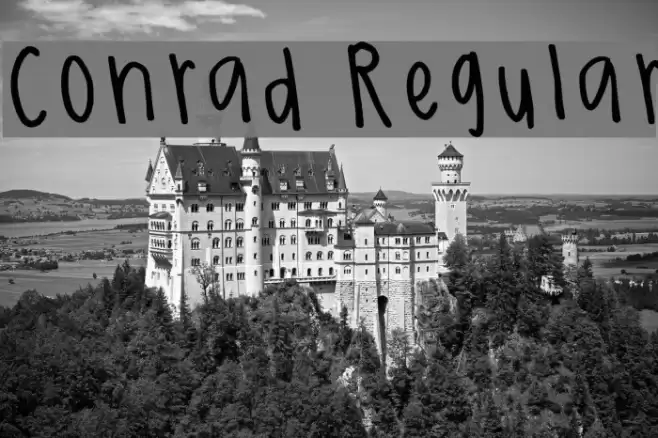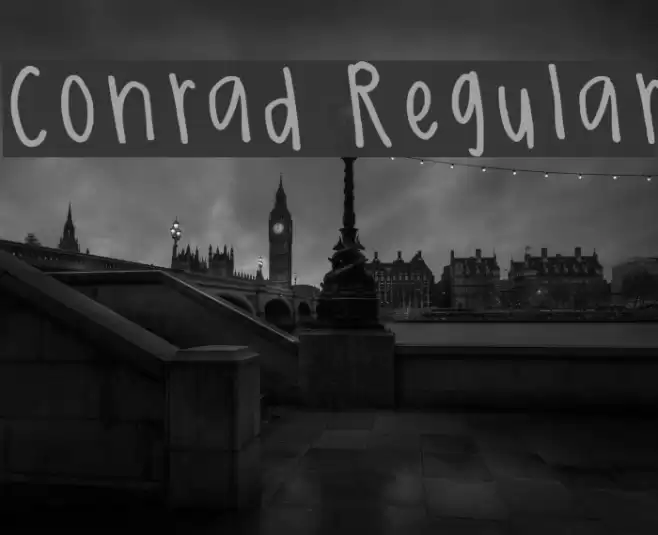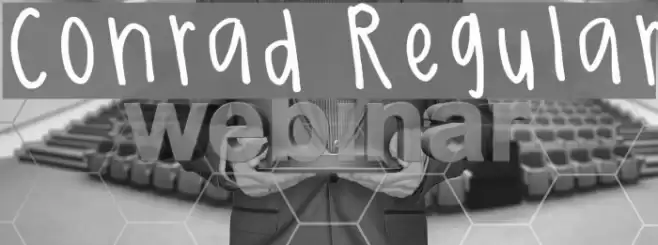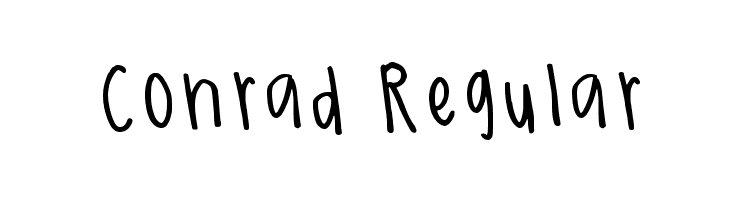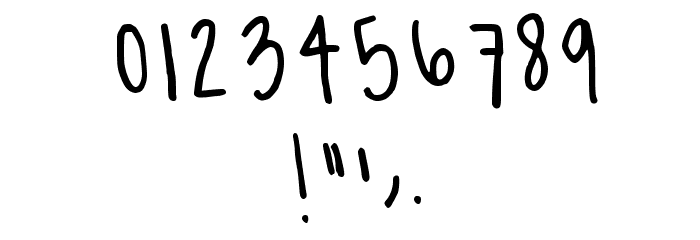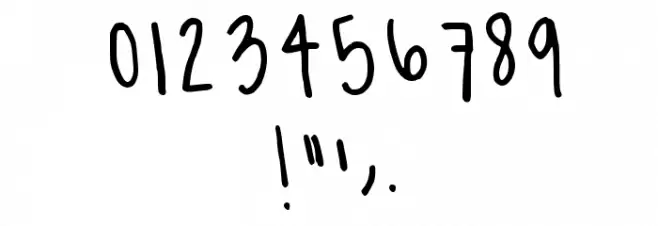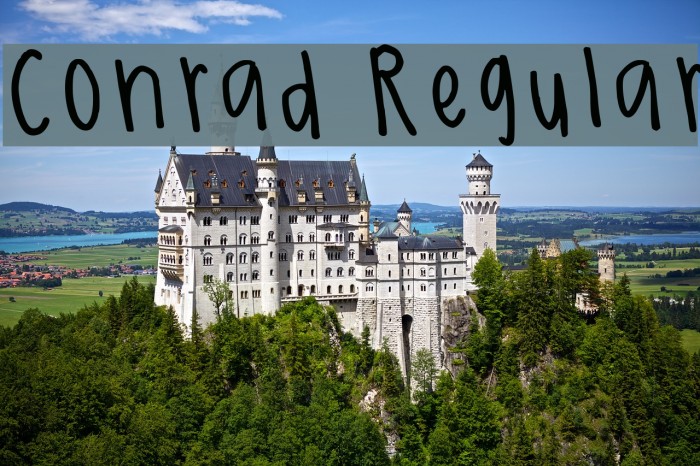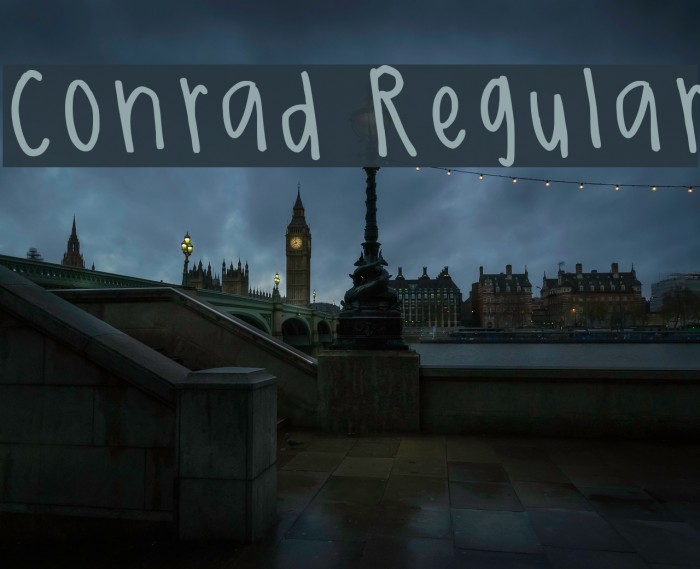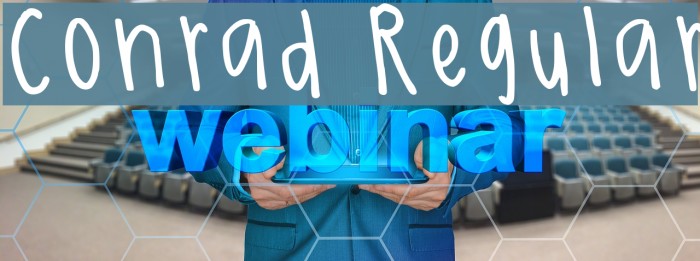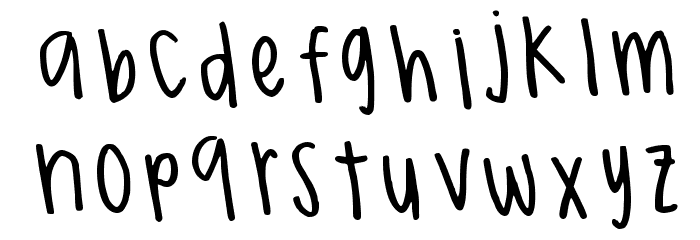
Conrad Regular Font
Conrad Regular Description
This font features a playful and casual handwritten style, characterized by its irregular and slightly uneven strokes. The letters have a natural flow, with a slight tilt that adds to its informal appearance. The uppercase and lowercase letters are distinct, with the lowercase letters maintaining a consistent height. The numbers and special characters follow the same whimsical style, making the font suitable for creative and informal projects. The overall look is approachable and friendly, ideal for conveying a personal touch.
A playful handwritten font with a casual, informal style from Uncategorized fonts.
- Proposed Projects: Ideal for greeting cards, children's books, personal blogs, and creative branding projects.
- Overall Style: Casual
- Use Case: Headlines, Logos, Informal Text